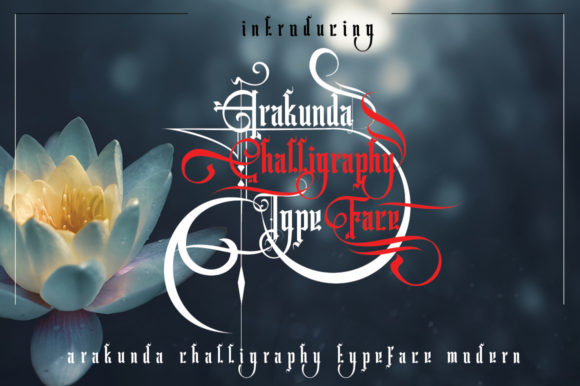
The Elegance of Arakunda Font: A Designer’s Delight
I’ll never forget the time I was working on a luxury branding project for a high-end jewelry client. I had spent hours perfecting the logo design, but something felt off. The font I was using just didn’t convey the level of sophistication and elegance that the brand embodied. That’s when I stumbled upon the Arakunda font, a beautiful calligraphy font that has elegant swashes which will give your design a luxurious feel.
As soon as I saw it, I knew I had found the perfect fit. The Arakunda font added a touch of glamour and refinement to the design that took it to the next level. In this article, I’ll share my experience with the Arakunda font, including what I love about it, some quirks to be aware of, and practical tips on how to use it in your designs.
An Honest Review of Arakunda Font
What I Love About Arakunda Font ✨
- 💫 Elegant swashes that add a touch of luxury to any design
- 🎨 Versatile and works well for a variety of design projects, from branding to wedding invitations
- 📚 Extensive character set, including support for multiple languages
- ⚠️ Some users may find the font a bit too ornate for certain projects
- 🤔 Limited availability of certain OpenType features in certain software
The Story Behind Arakunda Font
The Arakunda font was designed by a team of typographers who wanted to create a elegant, luxurious font that would add a touch of sophistication to any design. Inspired by traditional calligraphy, the font features elegant swashes and a refined aesthetic that makes it perfect for high-end designs.
Q: What is the Arakunda font?
A: The Arakunda font is a beautiful calligraphy font that features elegant swashes and a refined aesthetic.
Q: What type of designs is the Arakunda font best suited for?
A: The Arakunda font is perfect for luxury branding, wedding invitations, and other high-end designs that require a touch of elegance and sophistication.
Q: Is the Arakunda font easy to read?
A: Yes, the Arakunda font is highly legible, even at small font sizes. However, the font’s elegant swashes and refined aesthetic may make it more suitable for designs that require a touch of sophistication and elegance.